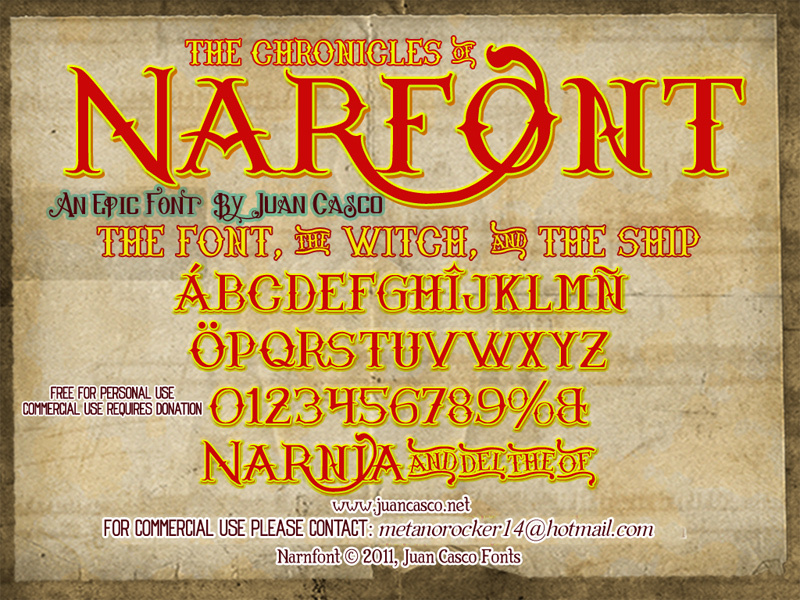
Narnfont by Juan Casco is a free Celtic Gothic display font with tall, theatrical capitals and pronounced thick-to-thin strokes. Sharp diamond-like points give the curves an engraved decorative edge.
Its Celtic and medieval references make it a natural fit for fantasy book covers, folk festival posters, role-playing game titles, and merchandise. In music packaging or heritage-themed branding, the hooked serifs and pointed joins can turn a name into an emblem that resembles carved stone ornament on an old sign.